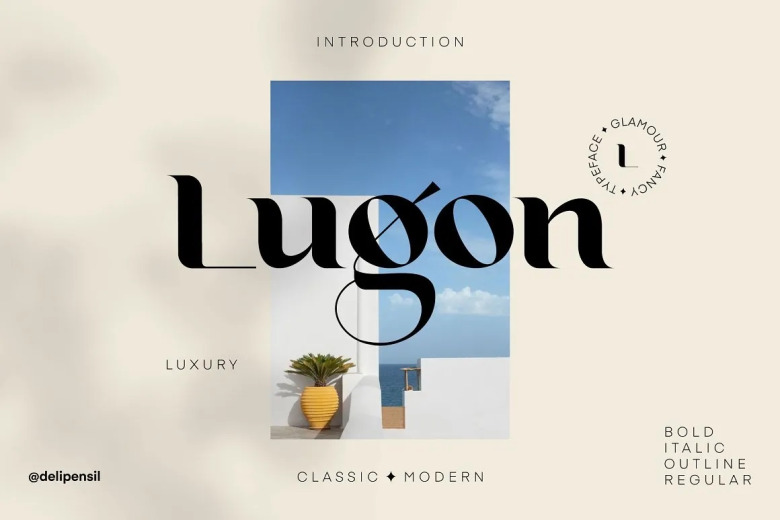
Lugon Font
Lugon is an elegant and luxurious serif font. Expertly designed to make your creation look out of this world, this font has the potential to take your ideas far further, it combine in one font, use this font for anything beauty place for your logo, headline, cover book, magazine and many more.
Lugon Serif Font